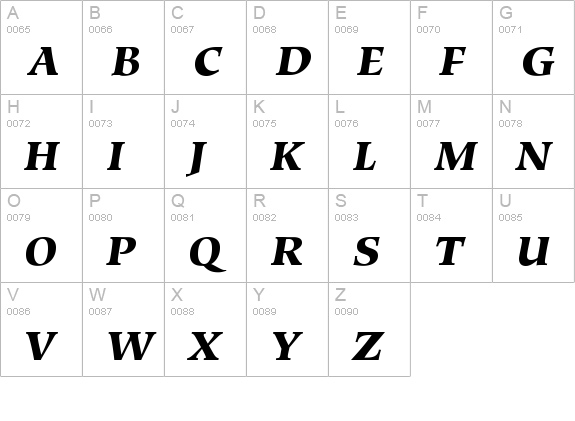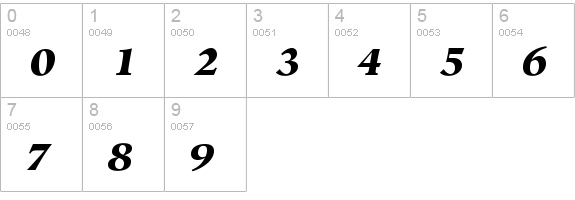
Hiroshige Std Black Italic is a maximum-weight, dramatic, italic variant in the Hiroshige typeface family \xE2\x80\x94 well suited to maximum-impact headlines, posters, and packaging.
Hiroshige Std Black Italic font is a bold and dynamic typeface that exudes elegance and sophistication. Its sleek and modern design makes it a perfect choice for creating impactful headings and titles. The italic styling adds a touch of flair and personality to any text, making it stand out from the crowd. What sets Hiroshige Std Black Italic font apart is that it is available for free download at FontsMarket.com. This means that you can easily access this stunning font and use it in your projects without any cost. Whether you're designing a website, creating marketing materials, or working on a personal project, Hiroshige Std Black Italic font is a versatile and eye-catching choice that will elevate your designs to the next level. Download it today and add a touch of sophistication to your work.